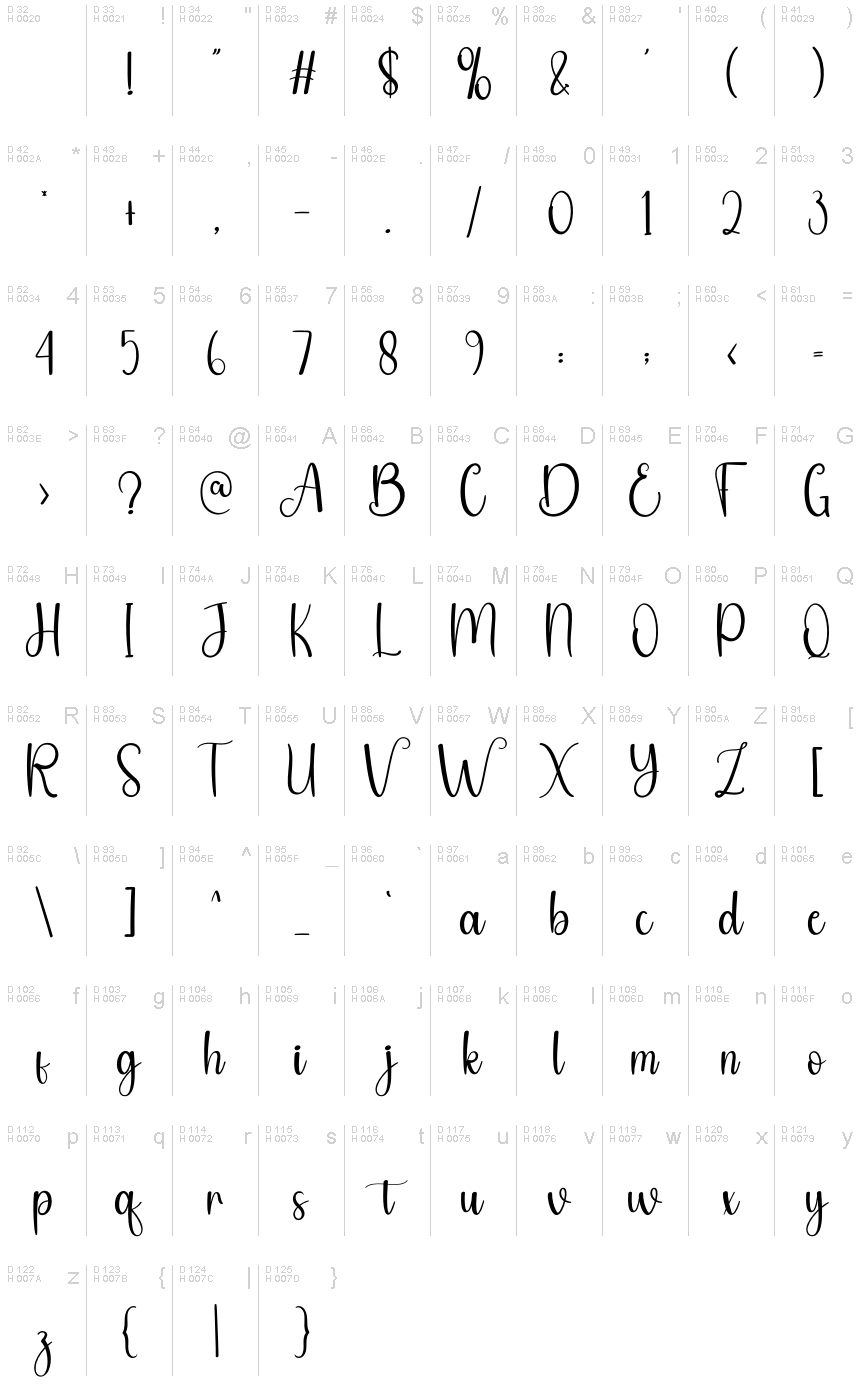
Hello Friday
Hello Friday is a captivating handwritten font designed by Andi Moz. Its condensed width and playful, fluid strokes exude a sense of casual elegance, making it an excellent choice for a wide range of design projects. From stylish event invitations to eye-catching social media graphics, this font seamlessly blends whimsy and sophistication, effortlessly elevating any design. Its versatility shines through, allowing designers to create impactful typography that leaves a lasting impression.
The font's unique character and personality make it a standout option for those seeking to infuse their designs with a touch of personality and charm. Whether used for headings, subheadings, or as a decorative accent, Hello Friday is sure to captivate and engage the viewer, leaving a lasting impression.